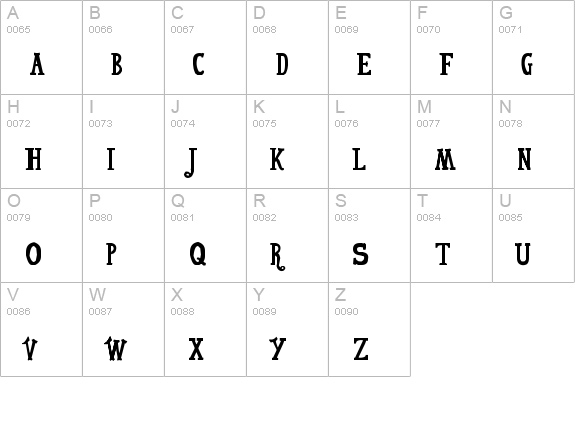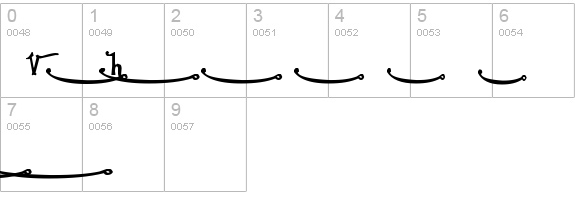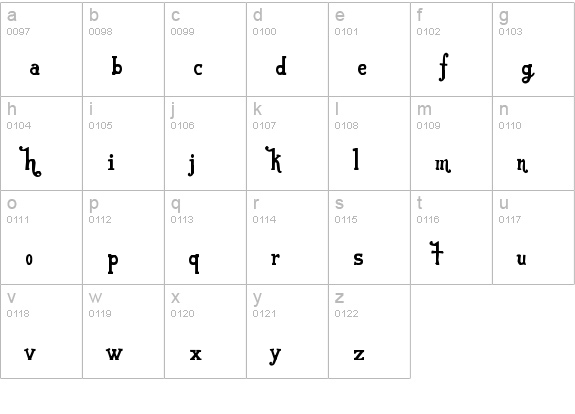
VonDutch font is a stylish and modern typeface that exudes sophistication and elegance. With its clean lines and sleek design, VonDutch font is perfect for a wide range of design projects, from branding to editorial design. This versatile font brings a touch of class to any project it is used in. The best part? VonDutch font is completely free to download at FontsMarket.com. This means you can add a touch of luxury to your designs without breaking the bank. Whether you're working on a logo, website, or print materials, VonDutch font is sure to elevate your project to the next level. Download this beautiful font today and see the difference it can make in your designs.